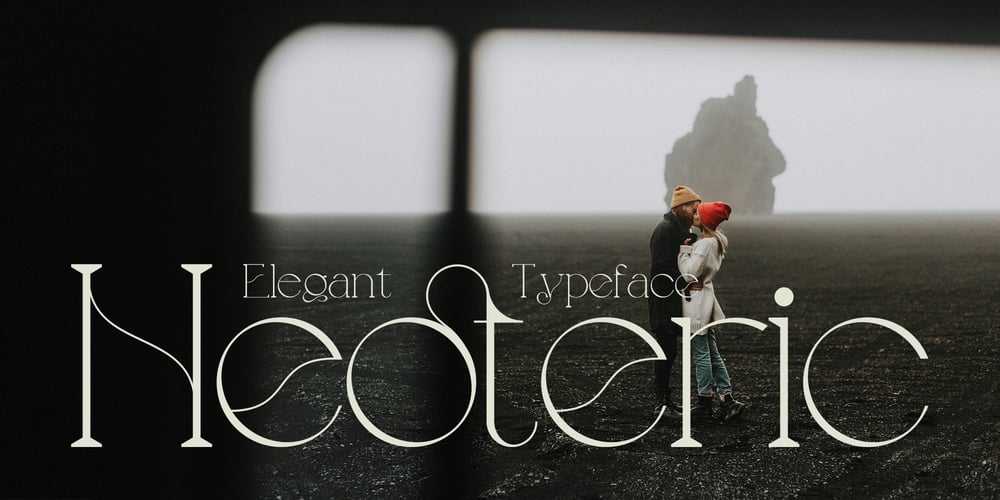
Neoteric Font Family was designed by Tetiana Bunakova and published by Tetiana Bunakova. Neoteric contains 1 styles and family package options. Neoteric typeface represent a modern elegant aesthetic. With opentype ligature integration, each letter flows effortlessly, enhancing its inherent charm.With retro aesthetics enjoying a resurgence, Novelty typeface is an ideal choice for add clean and elegant vibe to your logo design, brand identity, professional presentations, or other creative projects.